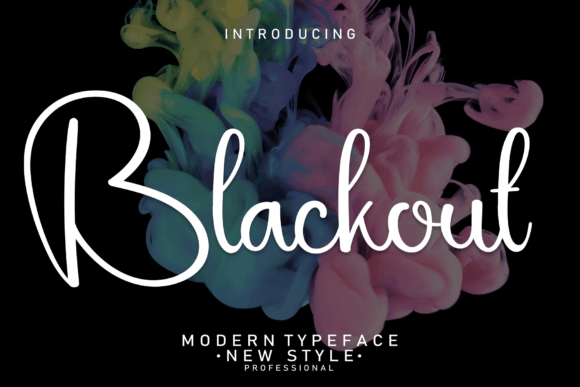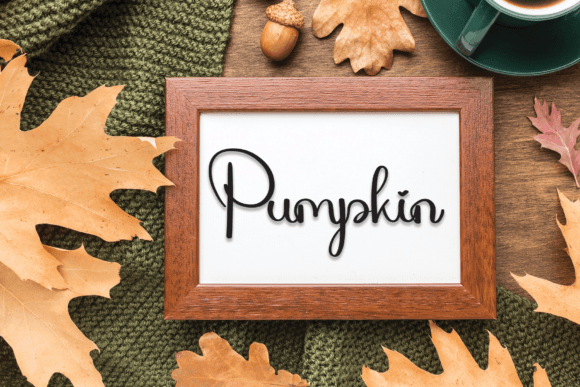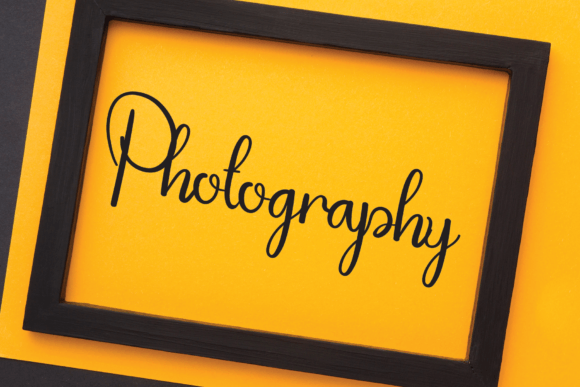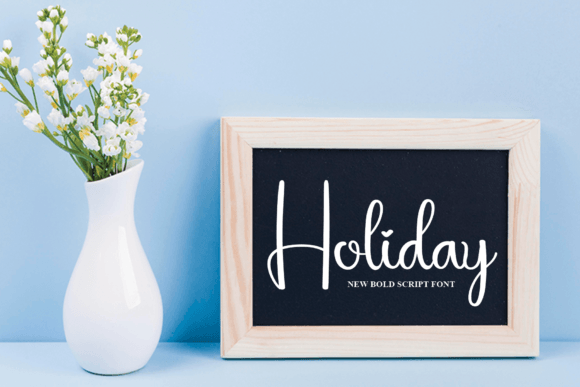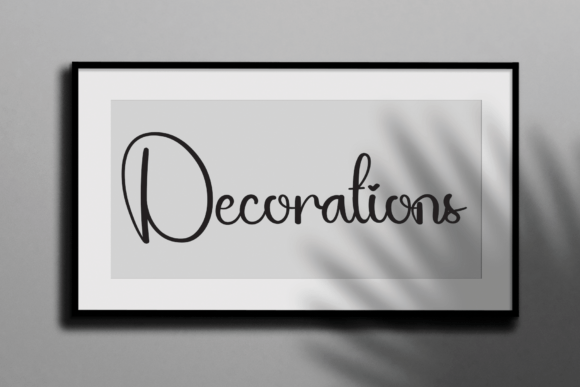
Blackout Font
The Blackout Font Download is a fun and friendly handwritten typeface designed to bring charm, warmth, and creativity to any project. Its casual strokes and approachable design make it ideal for everything from personal crafts to professional presentations. With its natural flow and clear readability, this font is versatile enough to become a favorite choice in your creative toolkit.
A Handwritten Typeface with Personality
Blackout is more than just a typeface—it’s handwriting captured in digital form. Its smooth strokes and rounded shapes give it a casual yet professional look. The Blackout Font Download combines creativity with clarity, ensuring your designs remain stylish while still easy to read. This balance makes it suitable for both playful and practical uses.
Perfect for Crafts and DIY Projects
Crafters value fonts that feel handmade while still looking polished, and Blackout delivers just that. From scrapbooking and embroidery to gift tags and wall art, this typeface adds personality to DIY projects. The Blackout Font Download makes every creative effort feel more special by blending a handcrafted look with professional quality.
Great for Greeting Cards and Invitations
Greeting cards carry personal messages, and the right font makes them even more impactful. Blackout’s handwritten charm works beautifully for thank you notes, birthday cards, and festive invitations. The Blackout Font Download turns everyday greetings into heartfelt keepsakes that recipients will treasure.
Ideal for Digital Design and Social Media
In the digital design world, fonts need to stand out while staying legible. Blackout is an excellent choice for Instagram posts, Pinterest graphics, blog headers, and YouTube thumbnails. The Blackout Font Download works seamlessly with platforms like Canva, Photoshop, and Illustrator, giving creators flexibility and ease of use.
A Strong Option for Presentations
Presentations benefit from fonts that are both engaging and clear. Blackout strikes this balance, offering a friendly handwritten style without sacrificing readability. Teachers, students, and professionals alike can use the Blackout Font Download to make slideshows more inviting and memorable.
Versatile for Every Creative Occasion
Blackout is highly adaptable, making it useful across a wide variety of design projects. It works well for branding, packaging, small business logos, and digital marketing campaigns. At the same time, it shines in personal projects such as cards, crafts, and decorative prints. The Blackout Font Download is a reliable choice for both personal and professional design needs.
Why Designers Love Blackout
Designers often look for fonts that balance creativity with usability, and Blackout does exactly that. Many handwritten fonts can lose readability at smaller sizes, but Blackout remains clear and stylish. The Blackout Font Download delivers charm, versatility, and functionality in one typeface, making it an essential addition to any design library.